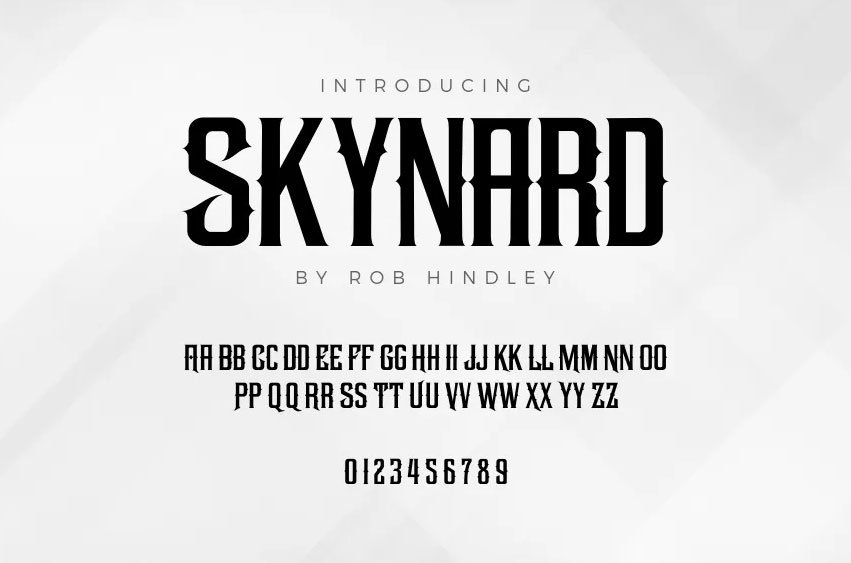
Skynard Font
Skynard Font is a bold, Victorian-inspired font with ornate gothic letterforms and intricate flourishes, reminiscent of classic rock album covers.
Drawing inspiration from Lynyrd Skynyrd’s “God + Guns” cover, this typeface conveys vintage Americana with a Southern twist, capturing the raw energy of rock ‘n’ roll.
Ideal for album covers, posters, and branding, Skynard brings a powerful and timeless style to your designs, blending elegance with a gritty edge.